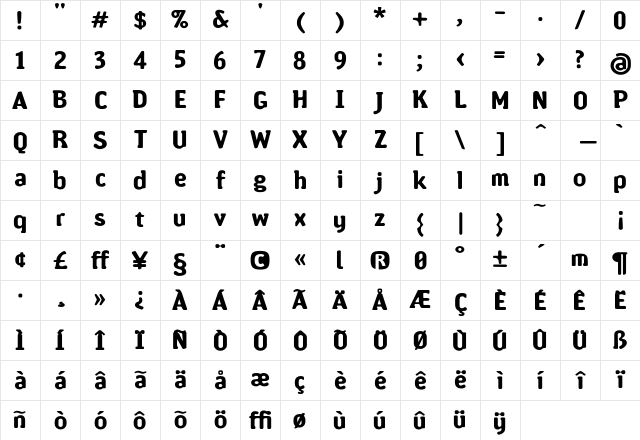
Complete Amoebia Drop glyph index. Displaying only characters natively supported by Amoebia Drop font.
Amoebia is a composed and adaptable typeface that performs quietly and consistently across a wide range of design contexts.